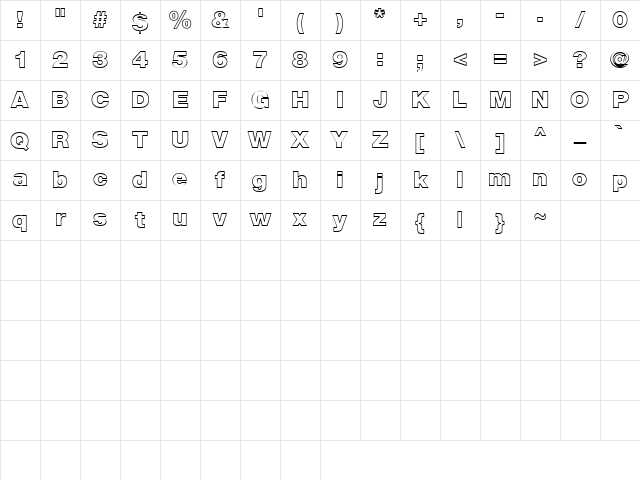
HelvNueOutline Normal
Design Context for HelvNueOutline
HelvNueOutline is built around its visual character rather than neutral utility - its distinctive forms are designed to make an impression at display sizes.
Font Pairing: Pair with a clean neutral sans-serif for body copy to let HelvNueOutline's character lead without overwhelming the composition.
Pro Tip: Use HelvNueOutline exclusively at display sizes - it was designed to be seen, not read at length. Let a neutral companion handle body copy.